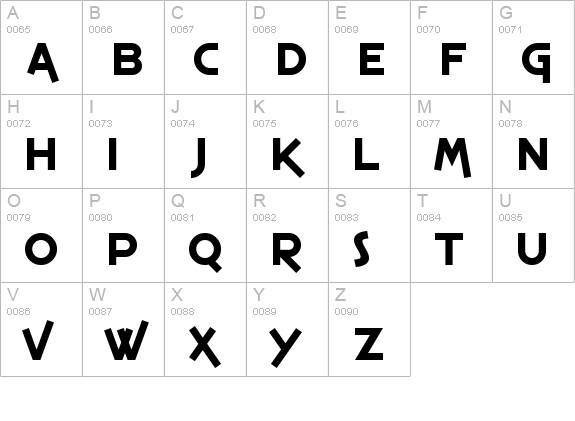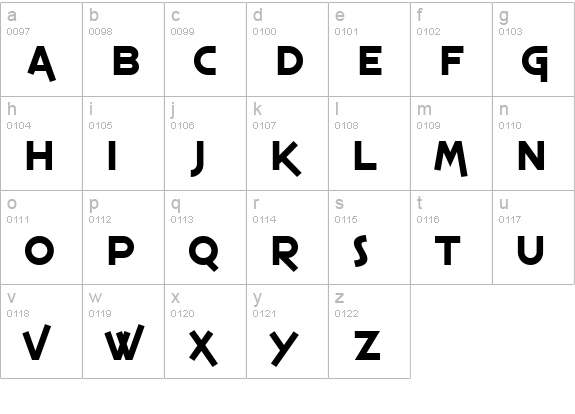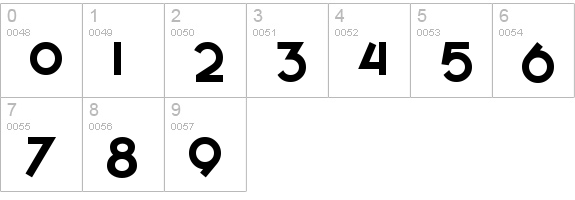
SF Espresso Shack Font Details
Introducing SF Espresso Shack, a captivating and dynamic font that will awaken your senses and add a touch of sophistication to any design project. This unique typeface effortlessly combines sleek lines with bold curves, creating a harmonious balance that captures the essence of modernity and style. SF Espresso Shack is the perfect choice for those seeking a font that exudes both elegance and versatility. Its refined yet playful nature makes it suitable for a wide range of applications, from branding and packaging to editorial design and posters. With its clean and legible letterforms, this font ensures that every word is delivered with clarity and impact. But what truly sets SF Espresso Shack apart is its accessibility. We believe that great design should be available to all, which is why we are thrilled to offer this font for free. Yes, you read that right – SF Espresso Shack is freely available to download at FontsMarket.com. Now, you can elevate your creative projects without breaking the bank. Whether you're a seasoned designer or a passionate hobbyist, SF Espresso Shack empowers you to unleash your creativity with boundless possibilities. Its extensive character set includes uppercase and lowercase letters, numerals, punctuation, and a variety of special characters, ensuring that you have all the tools you need to bring your vision to life. So go ahead, indulge in the world of SF Espresso Shack. Download this remarkable font today and embark on a journey of design excellence. Let your imagination run wild as you explore the endless possibilities this font offers, and create designs that are unmistakably yours. Remember, SF Espresso Shack is waiting for you, just a few clicks away at FontsMarket.com.